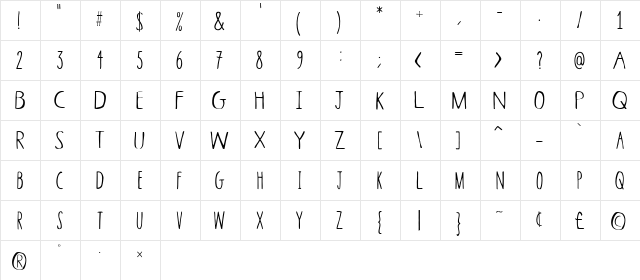
Gaunt Skinny
| Foundry | Thrift and Thistle |
| Designer | Thrift and Thistle |
Design Context for Gaunt Typeface
Gaunt offers clean, dependable letterforms without strong stylistic allegiance, making it a practical choice for designers who need flexibility.